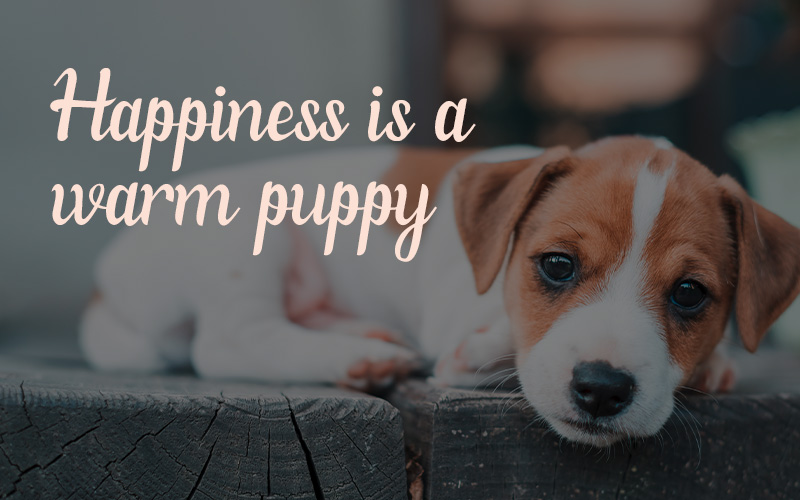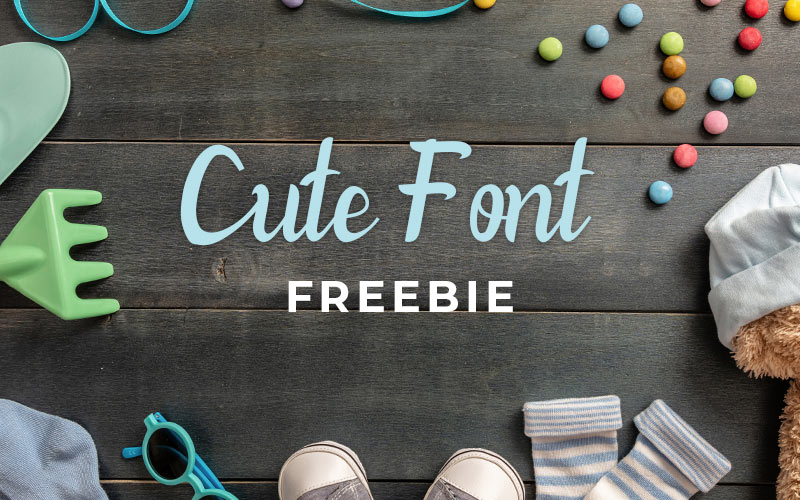
Are you working on multiple design projects that require a sassy & playful look?
Searching for perfect fonts can be messy for a designer. Therefore, Pixelo has brought you a Cute Font to create a cheerful & nostalgic design.
Carefully handpicked Cute font is a Handwritten Script font that belongs to the “Willona” Typeface.
Use it for social media posts, banners, thumbnails, cards & invites, and more! You can also use this for multipurpose design combined with your most original ideas to make them come to life.